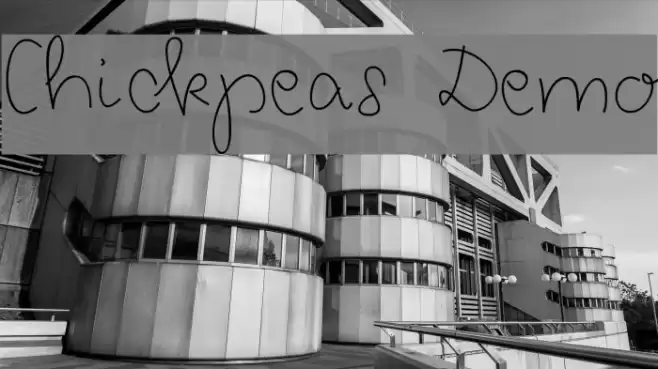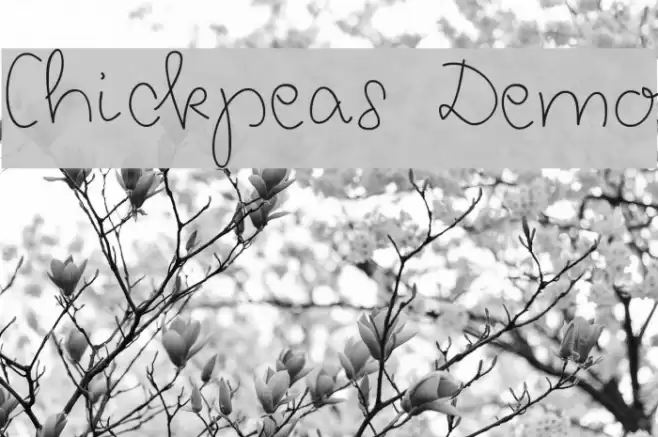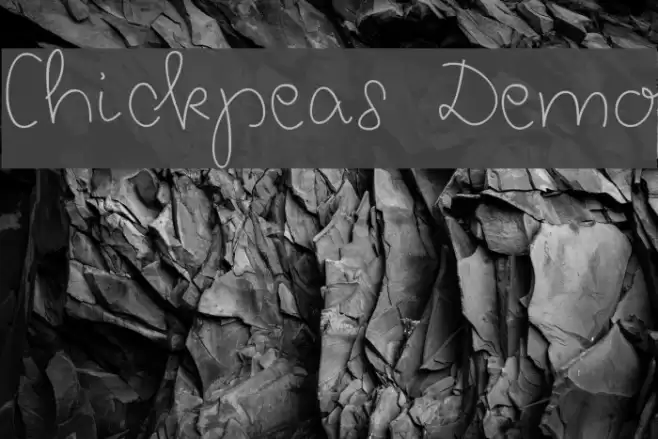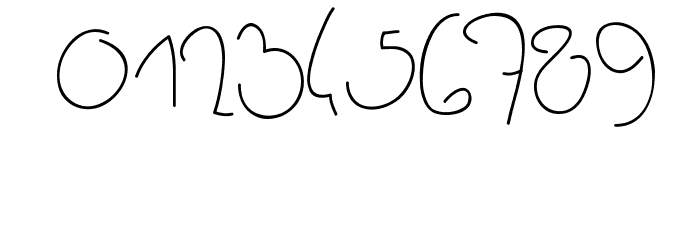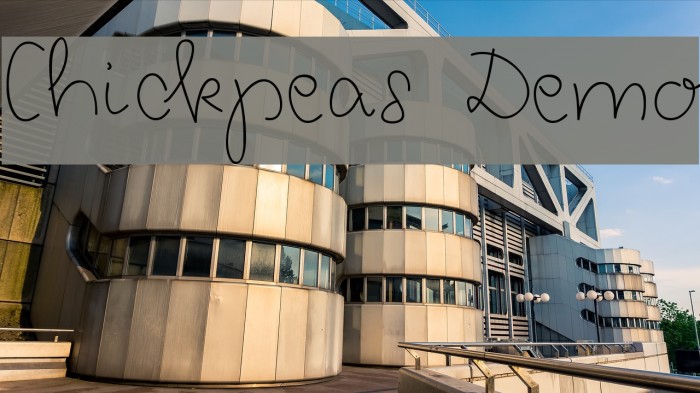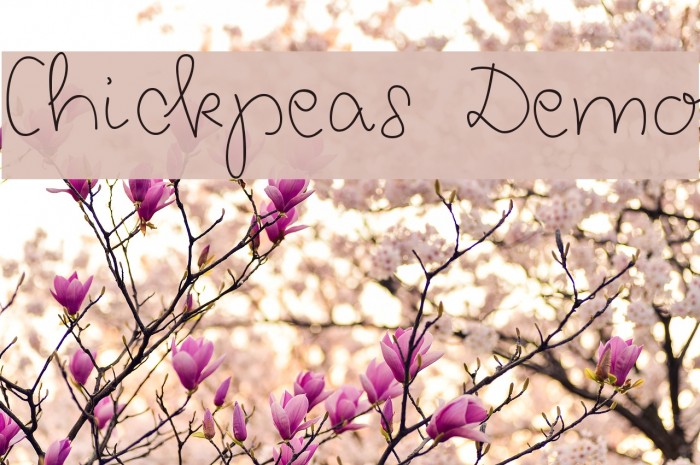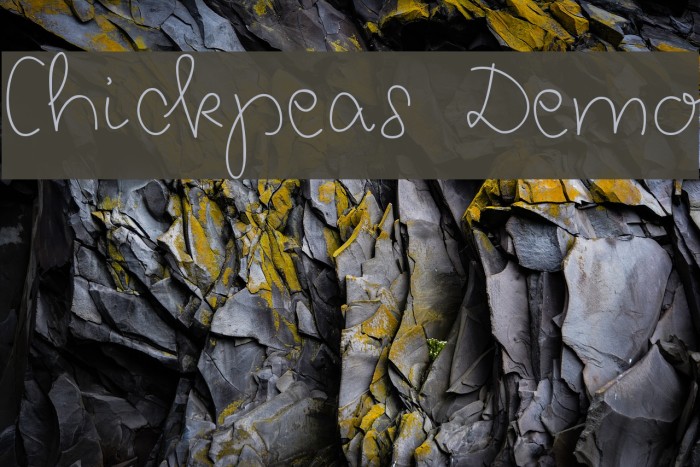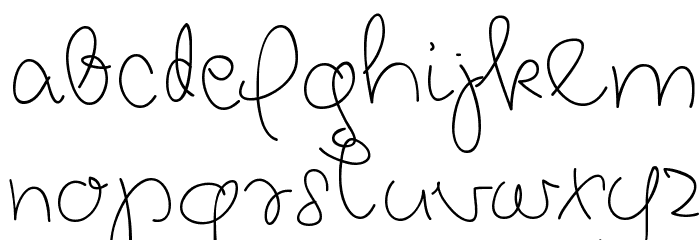
Chickpeas Demo Font
Chickpeas Demo Description
This font features a playful and whimsical script style, characterized by its flowing and interconnected letterforms. The strokes are smooth and rounded, giving it a friendly and approachable appearance. The uppercase letters maintain a consistent height, while the lowercase letters exhibit a slight variation in size, adding to the casual and informal feel. The numerals are distinct and easy to read, with a similar playful quality. Special characters are integrated seamlessly, maintaining the overall aesthetic. This font is ideal for projects that require a touch of personality and charm.
A playful and whimsical script font with smooth, rounded strokes from Handwritten fonts.
- Proposed Projects: Greeting cards, invitations, children's books, playful branding, and social media graphics.
- Overall Style: Whimsical
- Use Case: Logos, Invitations, Greeting Cards